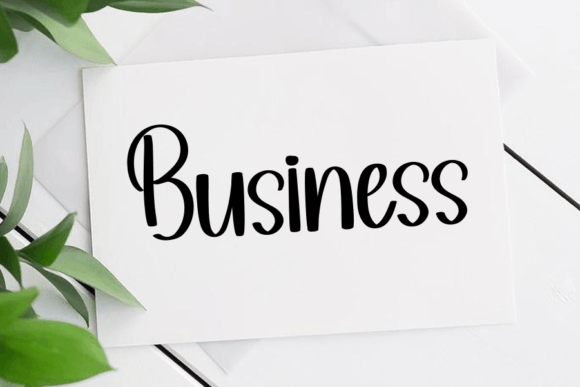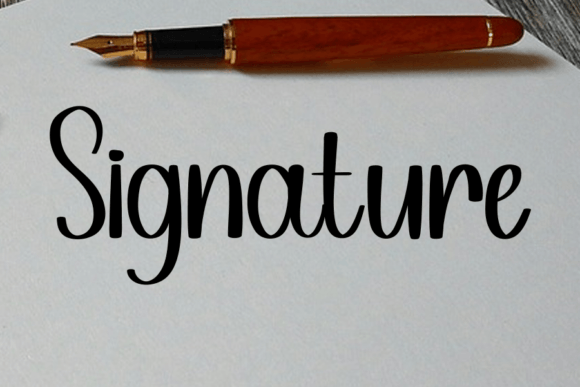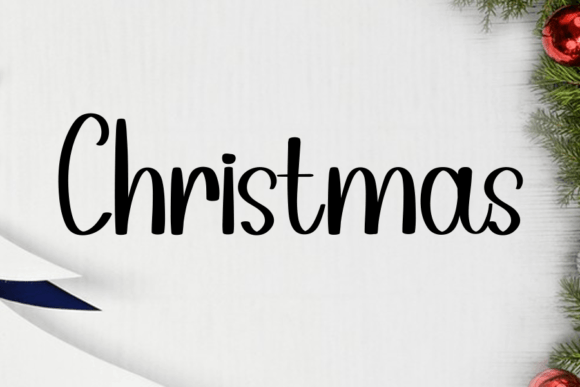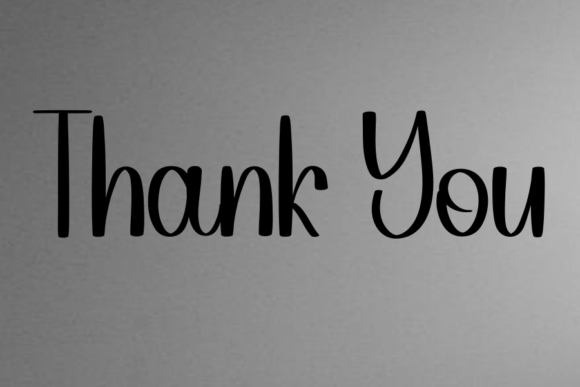
“Handmade” emerges as a beautiful and trendy handwritten font, thoughtfully designed to enhance a variety of creative endeavors. Whether you’re engaged in crafting, digital designing, presentations, or greeting card making, “Handmade” stands out as the perfect choice for your projects.
The beauty of “Handmade” lies in its stylish and handcrafted design. The trendy elements infused into the font make it versatile and well-suited for a range of applications. Its contemporary aesthetic adds a touch of modernity to your projects, ensuring they align with current design trends.
For crafting enthusiasts, “Handmade” becomes an invaluable asset. The handwritten style imparts a personalized and artistic touch to your creations, making them visually appealing and unique. Whether used in scrapbooking, DIY projects, or other crafting endeavors, the font enhances the overall aesthetic.
In digital design, “Handmade” brings a fresh and trendy vibe. Its handwritten charm adds character to digital platforms, making it suitable for social media posts, websites, and other digital content. The font’s versatility allows it to adapt seamlessly to the dynamic nature of digital design.
Presentations benefit from the stylish and engaging nature of “Handmade.” Whether utilized in slides, titles, or other visual elements, the font adds a touch of creativity and flair, capturing the attention of your audience. Its trendy design contributes to a modern and memorable presentation.
For greeting card making, “Handmade” is an ideal choice. The handwritten font adds warmth and personality to your messages, making the cards more heartfelt and visually appealing. Whether used for special occasions or everyday greetings, the font enhances the overall sentiment.
In essence, “Handmade” is more than just a font; it’s a design asset that adds beauty and trendiness to your creative projects. Embrace its stylish handwritten design and let it elevate your crafting, digital designing, presentations, and greeting card making to new heights. Let “Handmade” be the perfect font that brings a touch of contemporary charm to your creative endeavors.